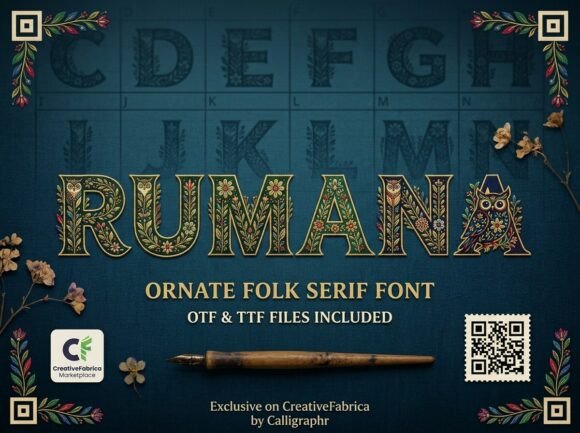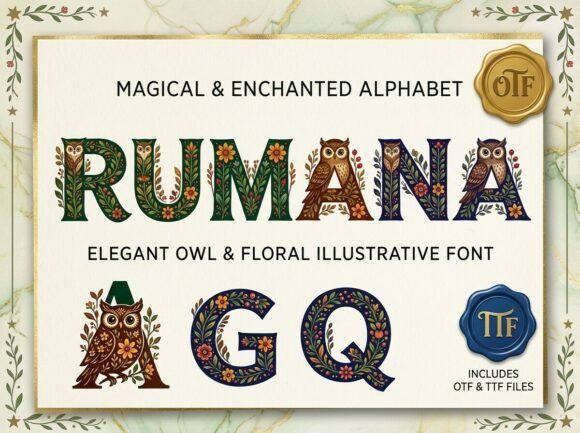
Introduction to Rumana Font Font
Fonts play a crucial role in design, and the Rumana Font font is a typeface that brings both character and versatility to any project. Whether you’re working on a branding project, a website, or a print design, the Rumana Font font offers a unique style that can elevate your work.
Unveil the charm of traditional craftsmanship with Rumana, an ornate folk serif font.
Inspired by classic folk art and embroidery patterns, each letter is densely packed with floral motifs and whimsical owls, finished in a rich green, gold, and crimson palette This typeface is a masterwork of storytelling, making it an exceptional selection for cultural branding, fairy-tale book titles, and premium holiday packaging.
Key Features of Rumana Font Font
Why Choose Rumana Font Font?
The Rumana Font font is more than just a typeface – it’s a design tool that helps you communicate your message with style and clarity. Its unique character set and versatile design make it suitable for a wide range of applications, from elegant invitations to bold headlines.
With its carefully crafted letterforms and balanced proportions, the Rumana Font font ensures readability and visual appeal across all mediums.
What makes Rumana Font font special?
The Rumana Font font stands out with its unique design, exceptional readability, and versatility across various design applications.